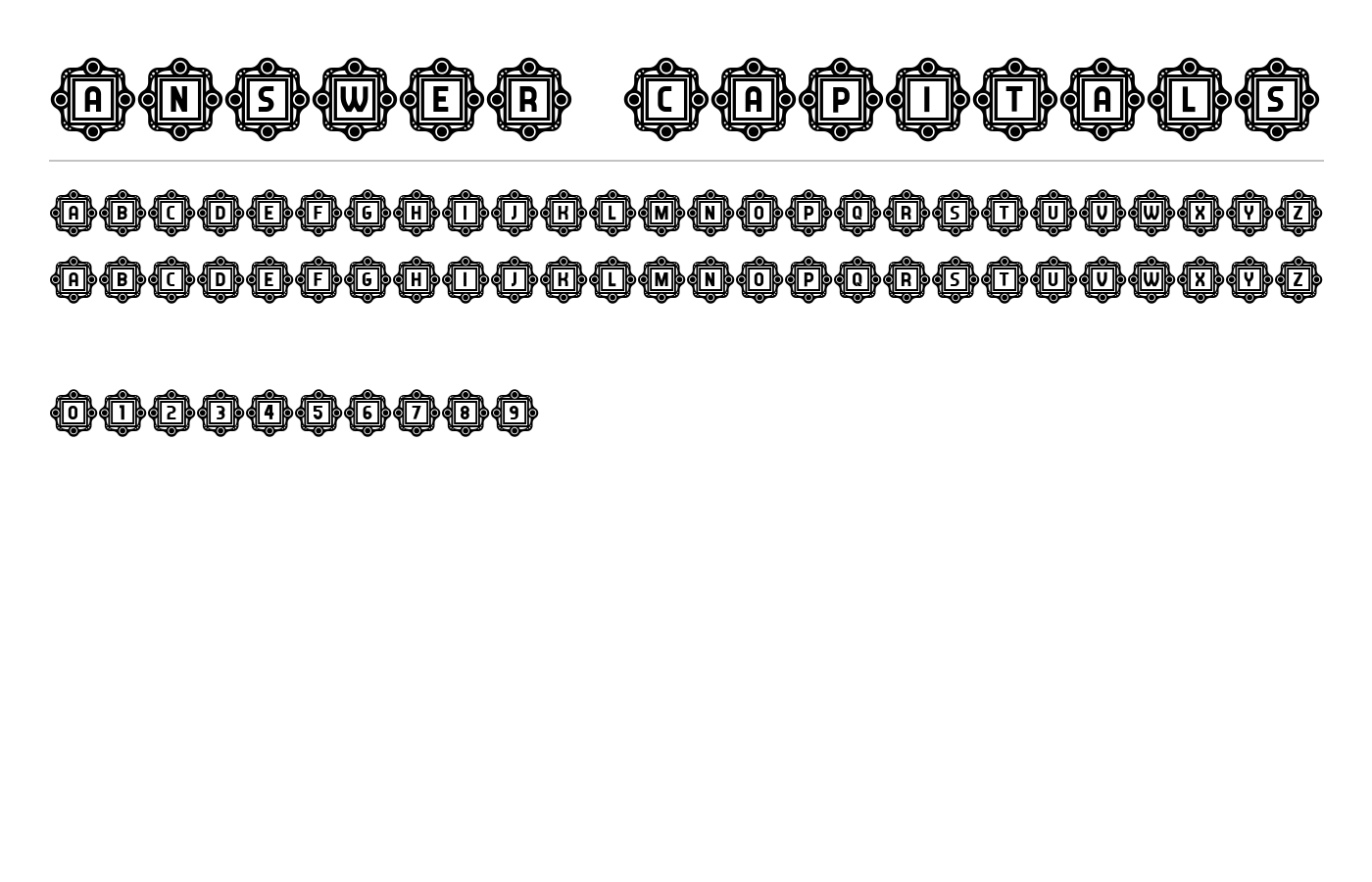
Answer Capitals Font is a bold, decorative sans serif typeface featuring uppercase letters enclosed within intricate ornamental frames that evoke a vintage, mechanical charm. Its uniform stroke weight and geometric shapes give it a strong, structured presence, making it ideal for eye-catching headlines, logos, or packaging where a unique, retro-industrial style is desired. This font works best for projects that need a distinctive, playful yet sturdy look that stands out with a touch of nostalgia.
Answer Capitals Font
About Answer Capitals Font
| Font family | Answer Capitals Font |